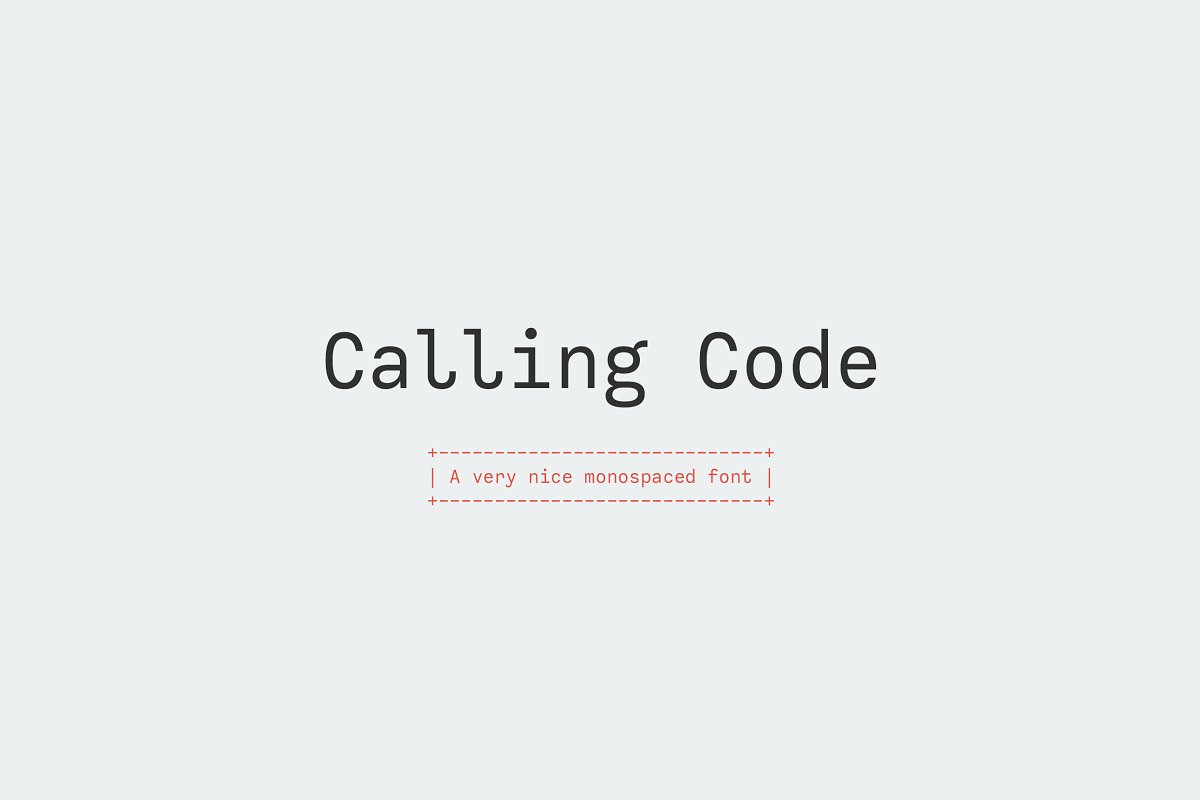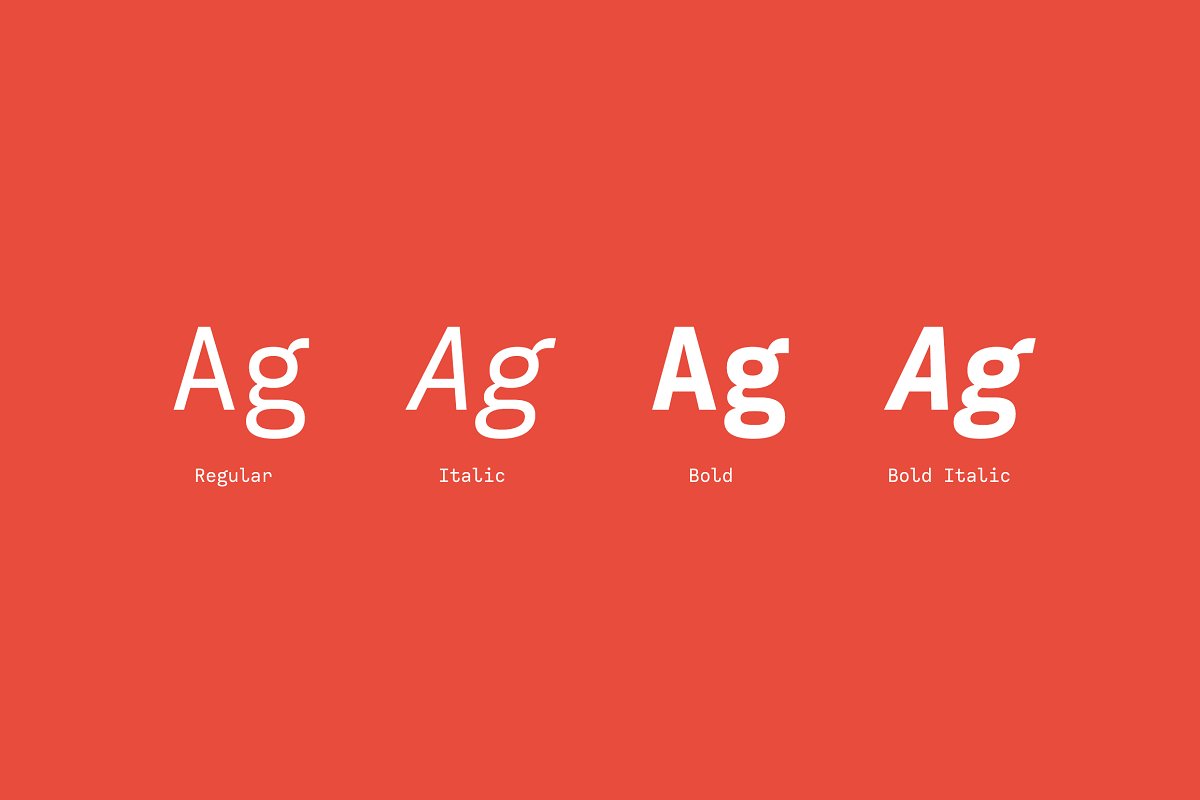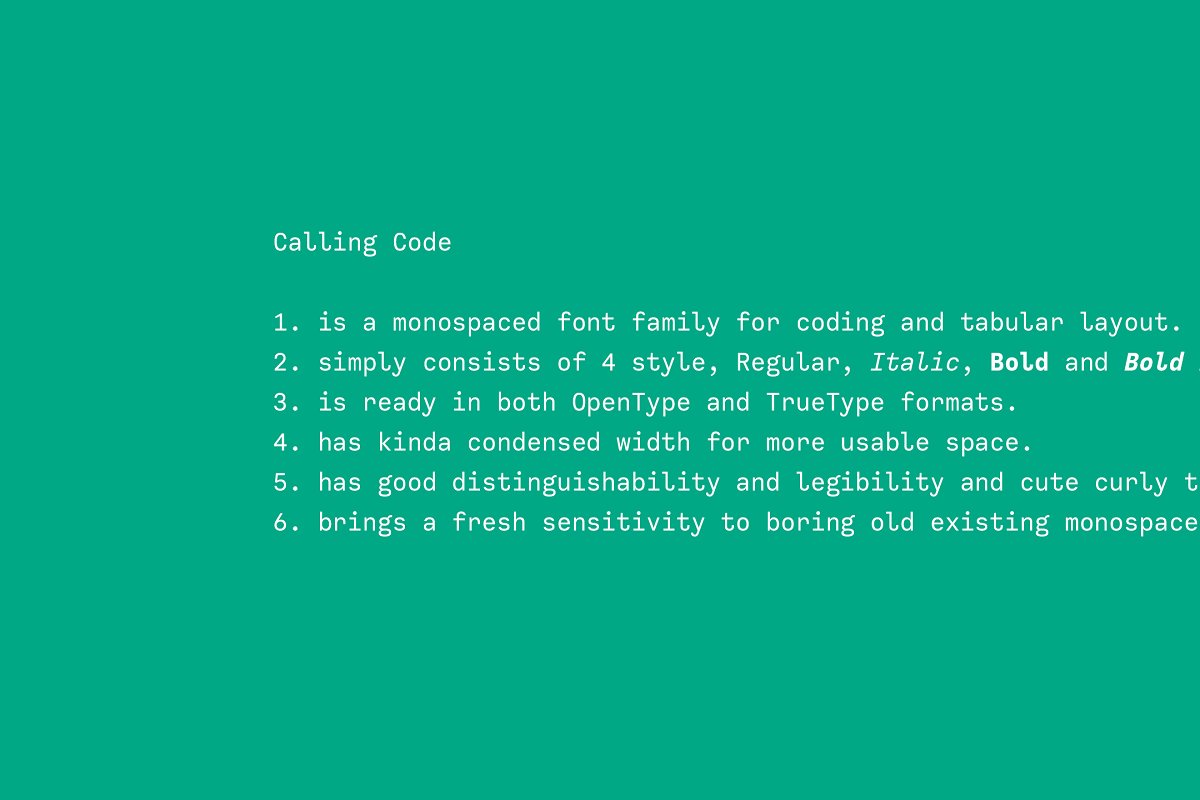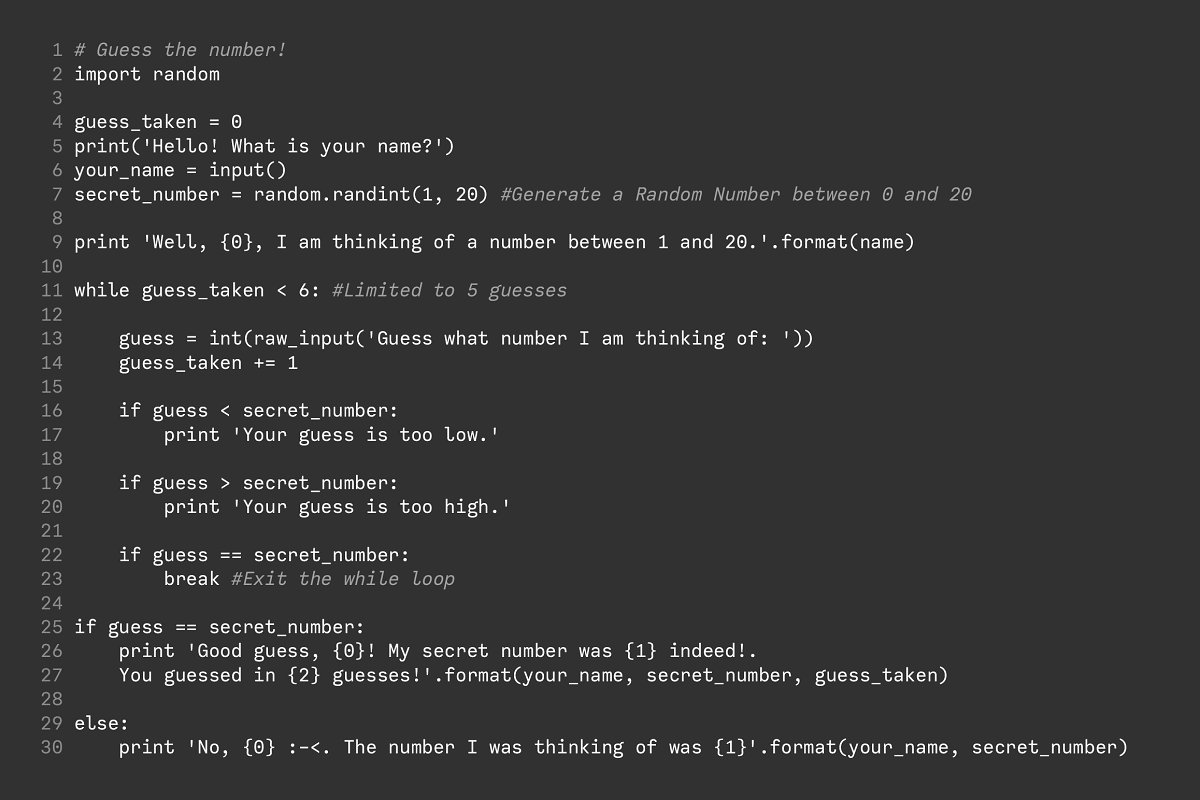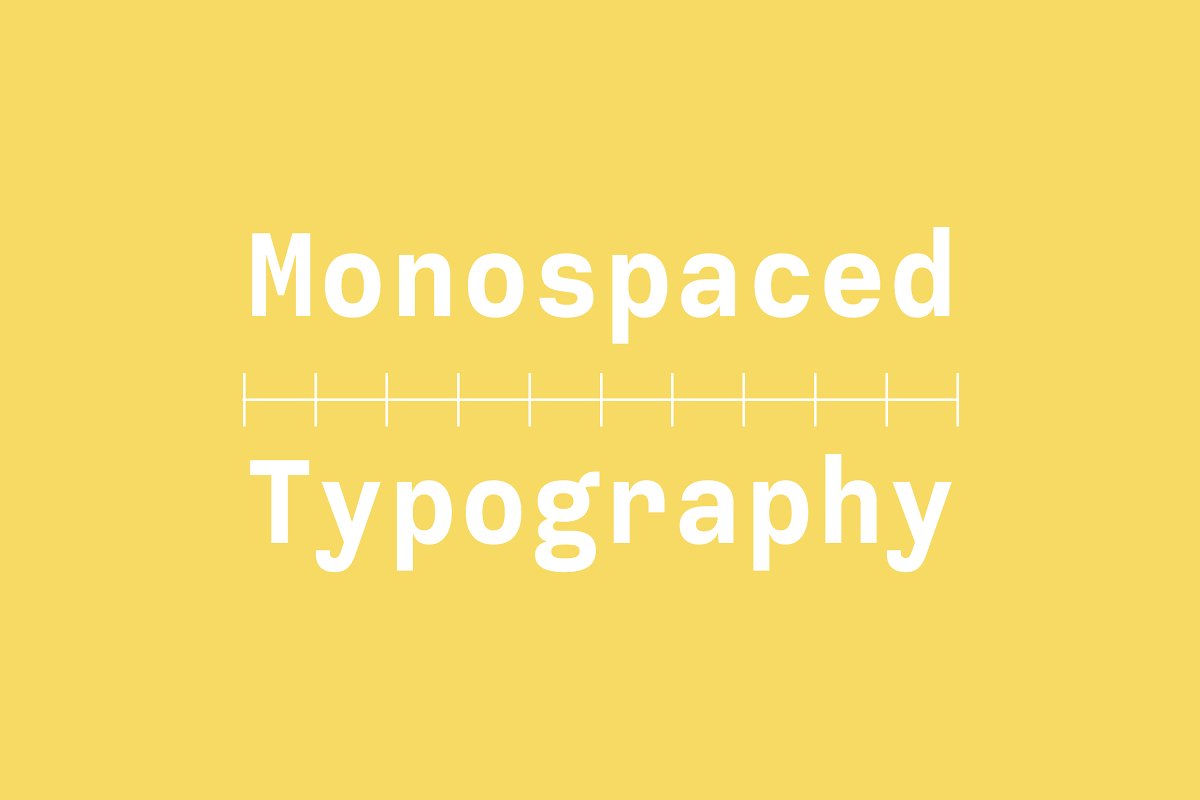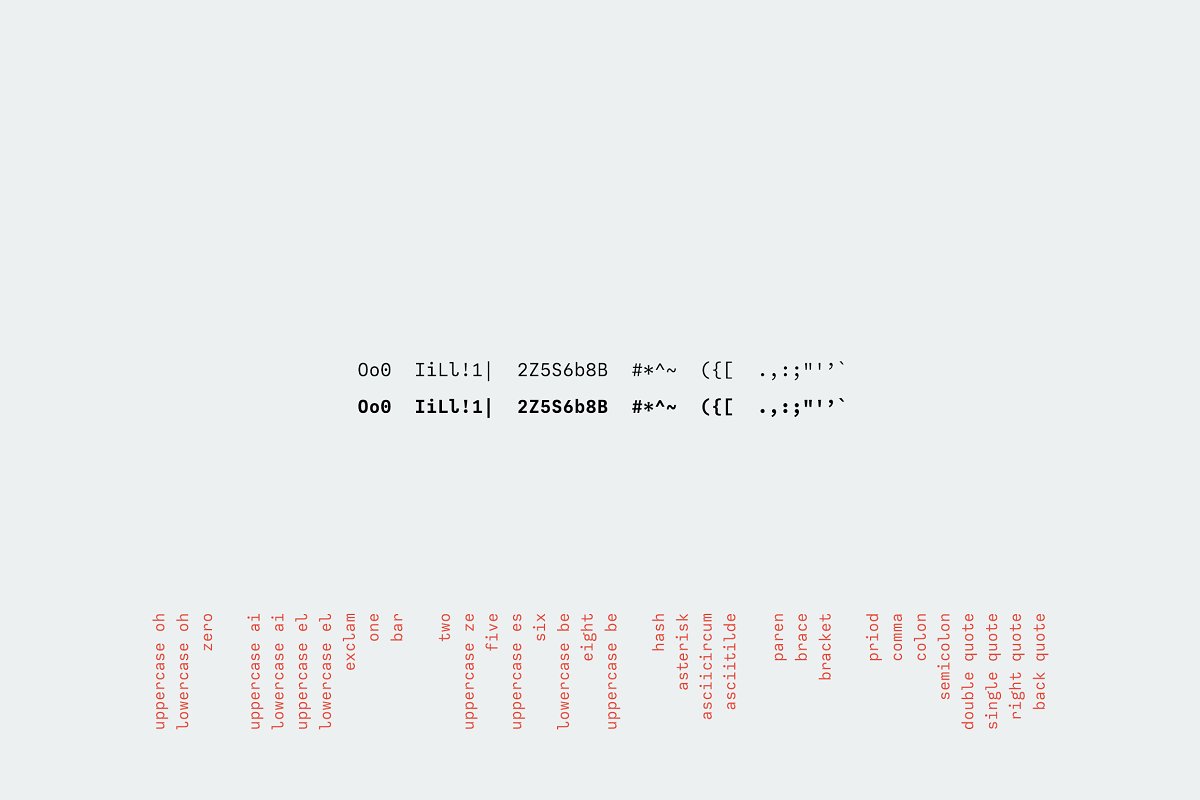
About the Calling Code
Calling Code — very nice monospaced font —is a monospaced font family for coding and tabular layout, simply consists of 4 style, Regular, Italic, Bold and Bold Italic, is ready in both OpenType and TrueType formats, has kinda condensed width for more usable space, has good distinguishability and legibility and cute curly tails
brings a fresh sensitivity to boring old existing monospaced fonts, This is a special pack, Including both OpenType(, otf) and TrueType(, ttf), 8 fonts in total, CallingCode-Regular, otfCallingCode-Italic, otfCallingCode-Bold, otfCallingCode-BoldItalic